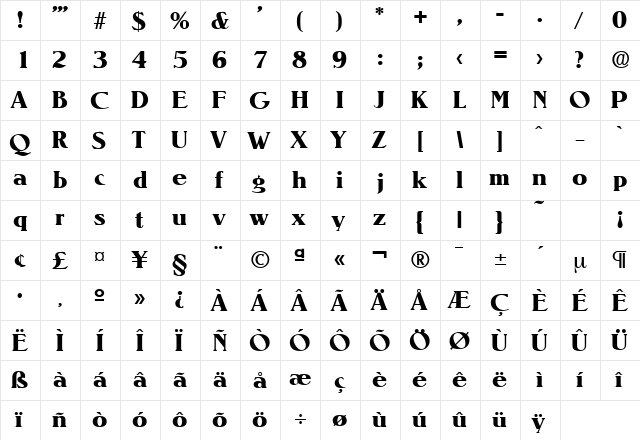
Nevada-Serial-ExtraBold Regular
Design Context for Nevada-Serial-ExtraBold Typeface
Nevada-Serial-ExtraBold offers clean, dependable letterforms without strong stylistic allegiance, making it a practical choice for designers who need flexibility. The heavy weight commands attention and anchors typographic hierarchies.